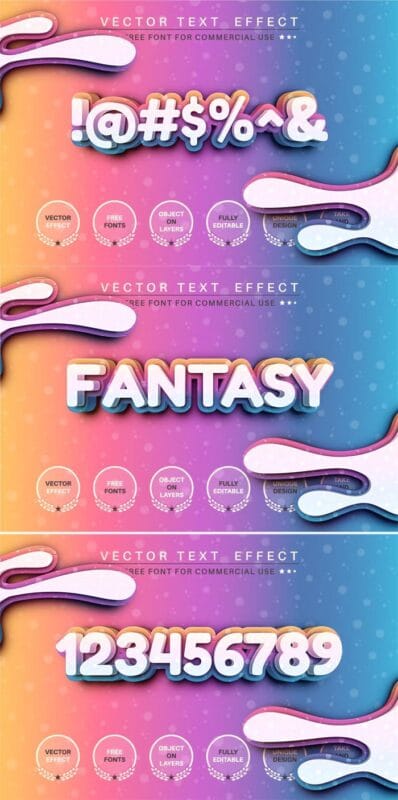
Unicorn Dream Editable Text Effect Font Style
Here in this post, you can Free Download Unicorn Dream Editable Text Effect Font Style FYQGWX6 compress files through the below link. new text effects “Unicorn Dream”. Just write your word and the effect will be applied! Be as creative as you like to express yourself with this unique “unicorn dream”. The effect is perfect for any project that needs a unique handy touch, whatever else your imagination takes you! You Can Free Download Paper Kitty Editable Text Effect Font Style.
Unicorn Dream Editable Text Effect Font Style